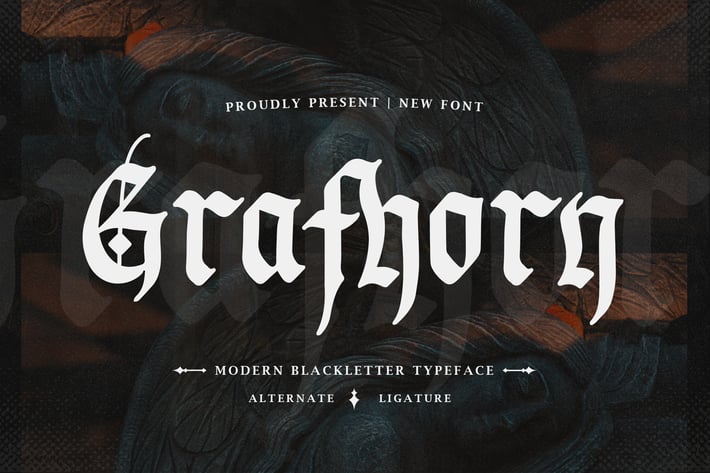
Grafhorn - Modern Blackletter Typeface
Introducing "Grafhorn" - a modern blackletter typeface that merges traditional elegance with contemporary flair, offering a bold and striking typographic solution for your designs.
With its distinctive angular letterforms and sleek lines, "Grafhorn" reimagines the classic blackletter style for the modern age. Whether you're designing branding materials, editorial layouts, event invitations, or signage, this font commands attention with its timeless sophistication and edgy appeal.
Embrace the power of "Grafhorn" as it effortlessly enhances your designs. With its modern interpretation of blackletter typography, this font adds a touch of drama and intensity to your projects, ensuring that they stand out with boldness and style.
Step into the world of modern blackletter with "Grafhorn" and let your designs make a bold statement with its striking and contemporary aesthetic.
– Lowercase
– Ligature
– Alternate